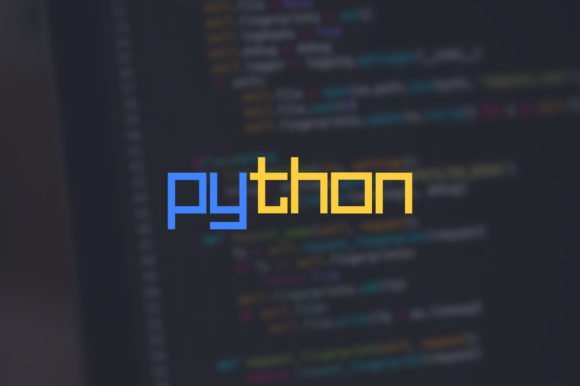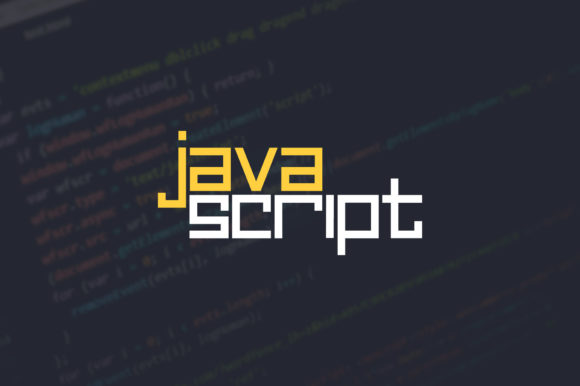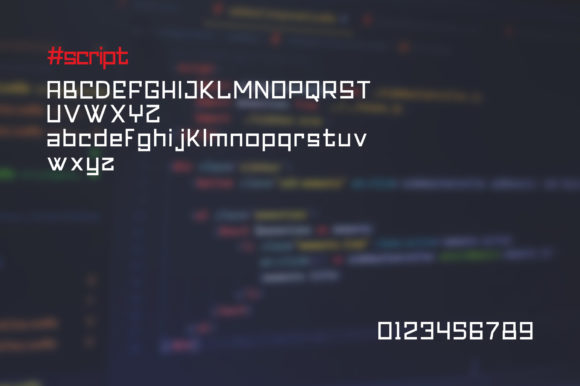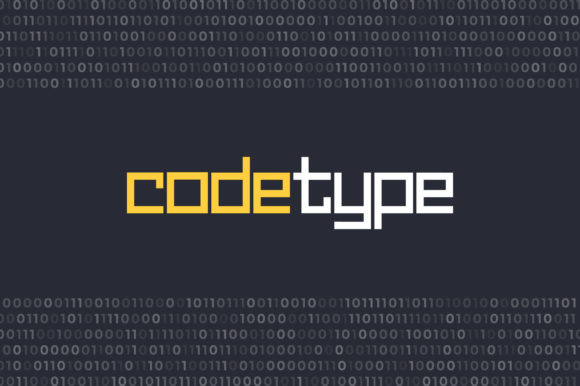
Codetype Font: The Ultimate Display Font for Modern Designers and Crafters
In the world of typography, fonts play a crucial role in conveying the tone and personality of a brand. For designers and crafters looking for a modern and edgy display font, Codetype is an excellent choice. This cool, squared lettered display font is perfect for any branding project, including logos, t-shirt printing, creative products, and more.
What is Codetype Font?
Codetype font is a sans-serif display font that features a unique, squared lettered design. Its modern and sleek aesthetic makes it an ideal choice for designers and crafters who want to add a touch of sophistication to their projects. The font’s clean lines, sharp edges, and geometric shape give it a futuristic look that’s perfect for creating stunning visual effects.
Key Features of Codetype Font
- Unique Squared Lettered Design: Codetype font features a distinctive squared lettered design that sets it apart from other display fonts.
- Modern and Sleek Aesthetic: The font’s clean lines, sharp edges, and geometric shape give it a modern and sleek look that’s perfect for creating visually appealing designs.
- High Versatility: Codetype font is highly versatile and can be used for a wide range of design projects, from logos and t-shirt printing to creative products and more.
- Easily Readable: Despite its unique design, Codetype font is easily readable, making it perfect for use in titles, headings, and other display text.
Use Cases for Codetype Font
Codetype font is perfect for a variety of design projects, including:
- Logo Design: The font’s unique design and modern aesthetic make it an excellent choice for creating stunning logos that stand out.
- T-Shirt Printing: Codetype font is perfect for t-shirt printing, as its bold and eye-catching design ensures that your message will be seen loud and clear.
- Creative Products: The font’s versatility makes it suitable for use in a wide range of creative products, such as posters, flyers, brochures, and more.
- Branding Projects: Codetype font is an excellent choice for branding projects, as its modern and sleek aesthetic helps to create a cohesive and professional look.
Tips for Using Codetype Font
To get the most out of Codetype font, here are some tips to keep in mind:
- Use it as a Display Font: Codetype font is designed to be used as a display font, so use it sparingly to create a lasting impression.
- Experiment with Colors: The font’s bold design looks great in a variety of colors, so don’t be afraid to experiment and find the perfect hue for your project.
- Pair it with Other Fonts: Codetype font pairs well with other fonts, so try combining it with a serif font for a contrasting look.
Codetype font is a cool, squared lettered display font that’s perfect for modern designers and crafters. Its unique design, modern aesthetic, and high versatility make it an excellent choice for a wide range of design projects. Whether you’re creating a logo, t-shirt, or creative product, Codetype font is sure to make a lasting impression.